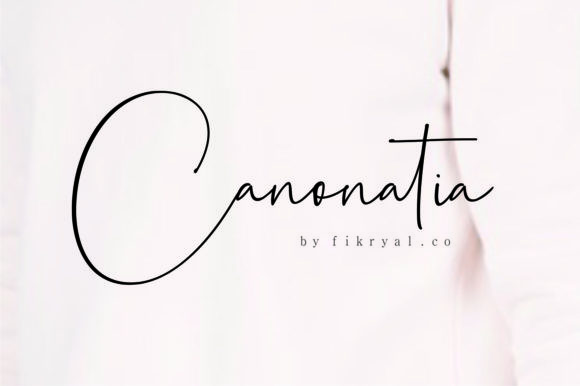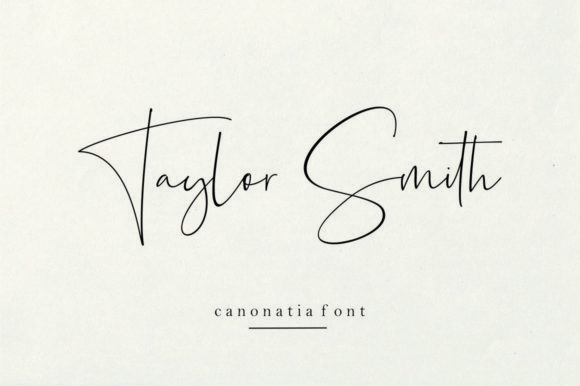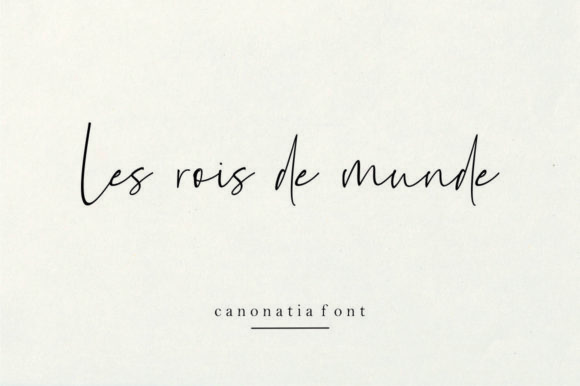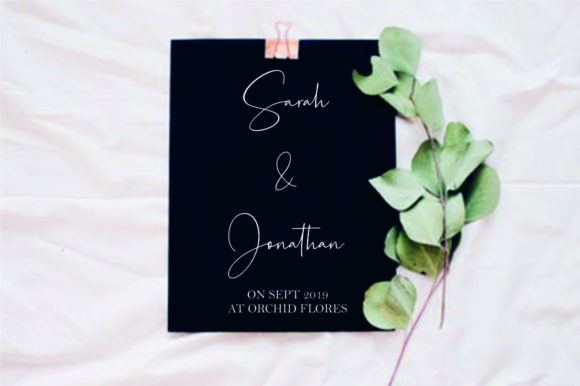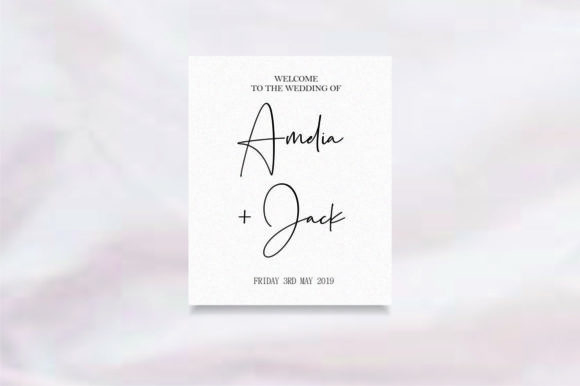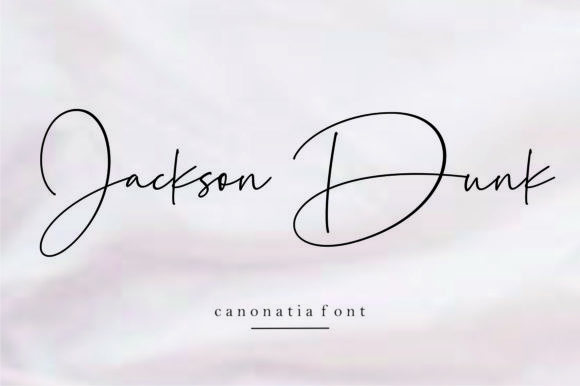
HomeScript FontsCanonatia Font Script Fonts Canonatia Font FacebookXPinterestWhatsApp Canonatia Font Poster 2 Canonatia Font Poster 3 Canonatia Font Poster 4 Canonatia Font Poster 5 Canonatia Font Poster 6 About Canonatia Font Canonatia is a beautiful and light handwritten font. It will turn any design idea into a stand out! DOWNLOAD ON CREATIVE FABRICAThis font is sold and delivered by Creative Fabrica. Font Canyon may earn a commission if you buy through this link. People also explored Flower Vintage Font The Gap Font Bouchyl | Unique Handwriting Script Font Font Cucumber Font Memories Font Dix-neuf Font Easter Font Adelia Pasha Font Nestone Font 325 0 TagsCanonatia Font Previous articleFloresta Script FontNext articleThe Crosses We Bear Font LEAVE A REPLY Cancel reply Comment: Please enter your comment! Name:* Please enter your name here Email:* You have entered an incorrect email address! Please enter your email address here Website: Save my name, email, and website in this browser for the next time I comment. Personal Use Free Airmole Personal Use Free Read more about this font Sellena Brush Font Personal Use Free Read more about this font Elevate Your Halloween Designs with 500 Free High-Quality PNG Clipart Files Personal Use Free Read more about this font Autines Personal Use Free Read more about this font BLOG Exploring Font Trends Shaping Communication in the Digital Era Fonts, like all design elements, are subject to trends. They play a crucial role in communicating a brand's personality,... Transform Your Website: Elevate Your Typography with 7 Best Web Font Generators How to Install and Use Fonts on Windows, macOS, and Web Projects The 10 Best Handwriting Fonts to Add Personality to Your Designs